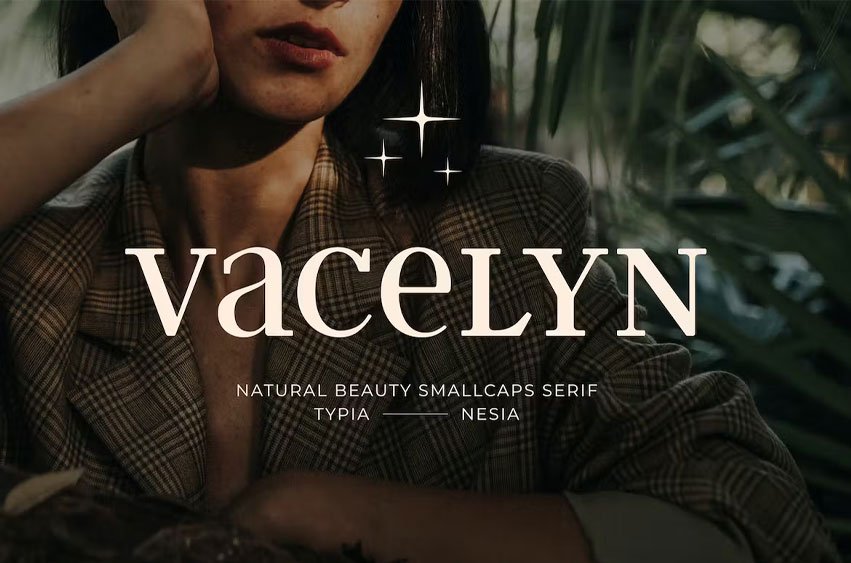
Vacelyn Font Natural Beauty Fashion Serif – Diversity Skincare Cosmetic Allcaps Display Font. Vacelyn smallcaps serif font is perfect for your up coming projects. Such as luxury logo and branding, classy editorial design, woman magazine, cosmetic brand, fashion promotional, art gallery branding, museum, historical of architectural, boutique branding, stationery design, blog design, modern advertising design, card invitation, art quote, home decor, book/cover title, special events and any more.